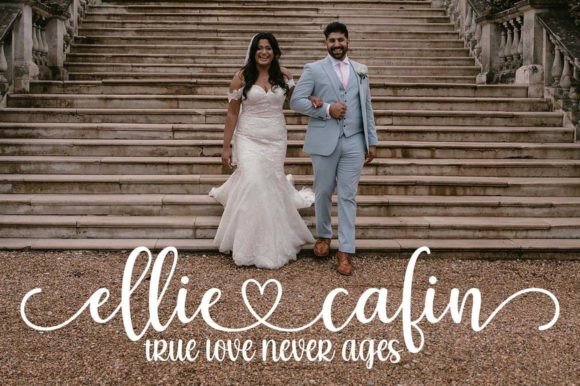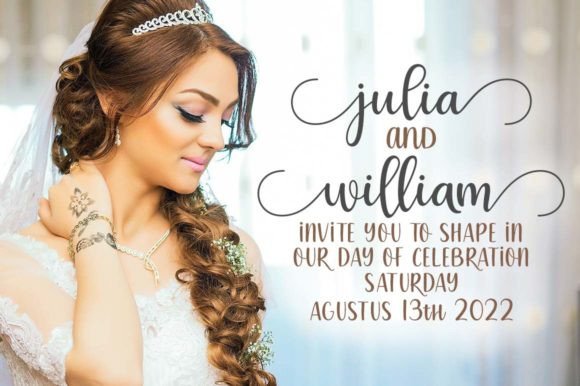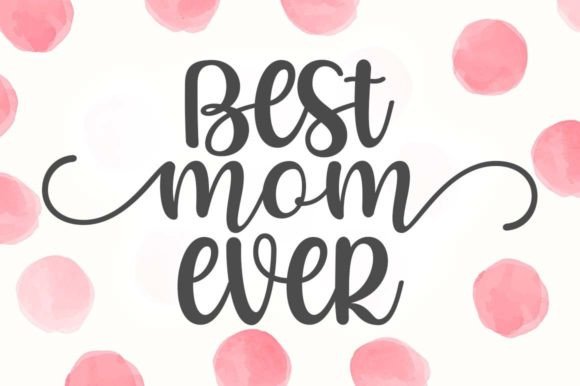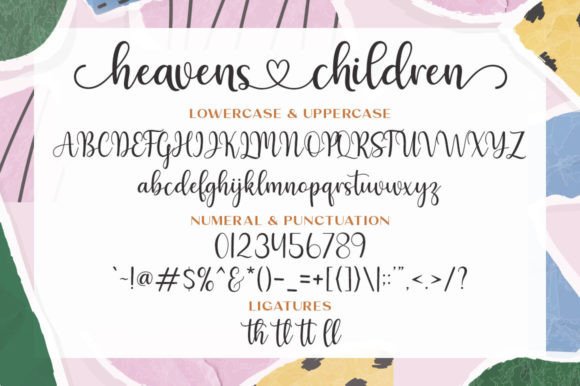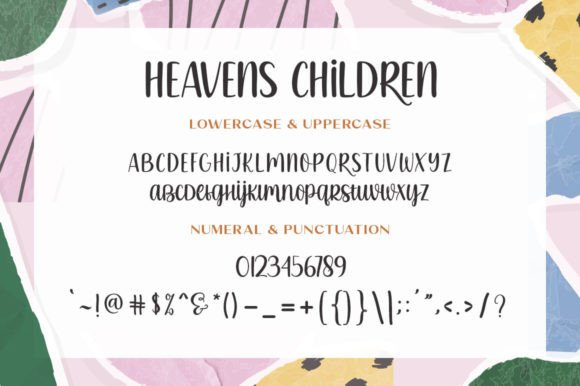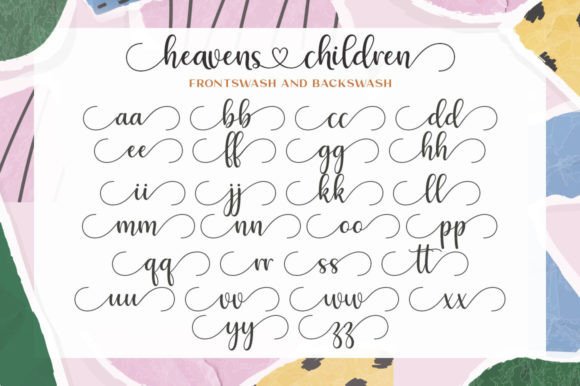
Introducing Heavens Children Duo Font: Elevate Your Designs with a Fun and Creative Twist
Are you tired of using the same old fonts in your designs? Look no further! Heavens Children Duo Font is here to revolutionize your creative projects with its unique blend of sans serif and script styles. This dynamic duo font is designed to bring a touch of fun and creativity to your designs, making them stand out from the crowd.
The Perfect Pair: Sans Serif and Script
Heavens Children Duo Font consists of two complementary fonts: a clean and modern sans serif font, and a beautiful, flowing script font. The sans serif font is perfect for headlines, titles, and short paragraphs of text, while the script font adds a touch of elegance and sophistication to your designs. Together, they form a match made in heaven, allowing you to create stunning visual effects and add depth to your designs.
Beautifully Balanced Characters
One of the standout features of Heavens Children Duo Font is its beautifully balanced characters. Each letter has been carefully crafted to ensure that it looks great on its own and in combination with other letters. The font has a harmonious feel to it, making it easy to read and visually appealing. Whether you’re designing a logo, a brochure, or a website, Heavens Children Duo Font is sure to impress.
The versatility of Heavens Children Duo Font is one of its greatest strengths. It can be used in a wide range of designs, from playful and whimsical to elegant and sophisticated. Whether you’re a designer, a crafter, or a DIY enthusiast, this font is sure to inspire your creativity. Here are just a few ideas to get you started:
- Logos and branding: Create a unique and memorable logo for your business or personal brand.
- Social media graphics: Add a touch of personality to your social media posts and stories.
- Invitations and stationery: Create beautiful and elegant invitations, greeting cards, and stationery.
- Web design: Use Heavens Children Duo Font to create stunning website headers, titles, and paragraphs.
- Crafting and DIY projects: Add a personal touch to your crafting and DIY projects, such as handmade cards, gift tags, and scrapbooking.
Why Choose Heavens Children Duo Font?
So why should you choose Heavens Children Duo Font for your next design project? Here are just a few reasons:
- Unique and creative: Heavens Children Duo Font is a one-of-a-kind font that will set your designs apart from the crowd.
- Versatile: This font can be used in a wide range of designs, from playful to elegant.
- Easily readable: The font is carefully crafted to ensure that it is easy to read and visually appealing.
- High-quality: Heavens Children Duo Font is a high-quality font that is designed to deliver exceptional results.
Heavens Children Duo Font is the perfect addition to your design toolkit. With its unique blend of sans serif and script styles, beautifully balanced characters, and endless design possibilities, this font is sure to inspire your creativity and take your designs to the next level. So why wait? Download Heavens Children Duo Font today and get ready to elevate your designs with a fun and creative twist!
In conclusion, Heavens Children Duo Font is a fun and creative duo font that is perfect for designers, crafters, and DIY enthusiasts. With its unique blend of sans serif and script styles, beautifully balanced characters, and endless design possibilities, this font is sure to inspire your creativity and deliver exceptional results. Whether you’re designing a logo, a brochure, or a website, Heavens Children Duo Font is the perfect choice. So why wait? Download Heavens Children Duo Font today and start creating stunning designs that will leave a lasting impression!